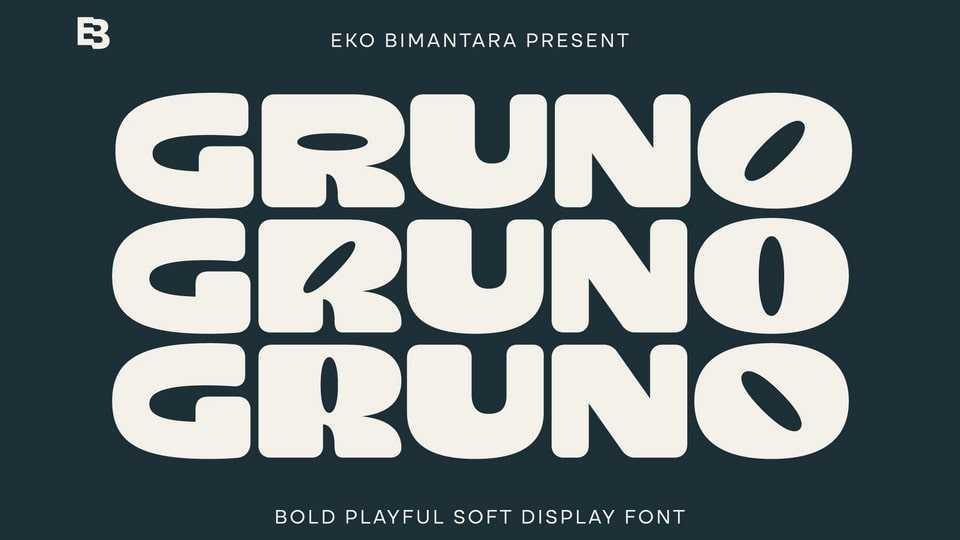
Download Gruno font, a bold and playful display typeface that adds a fun and vibrant touch to any design project. With its soft and rounded letterforms, Gruno exudes a unique and pop characteristic that is sure to capture attention.